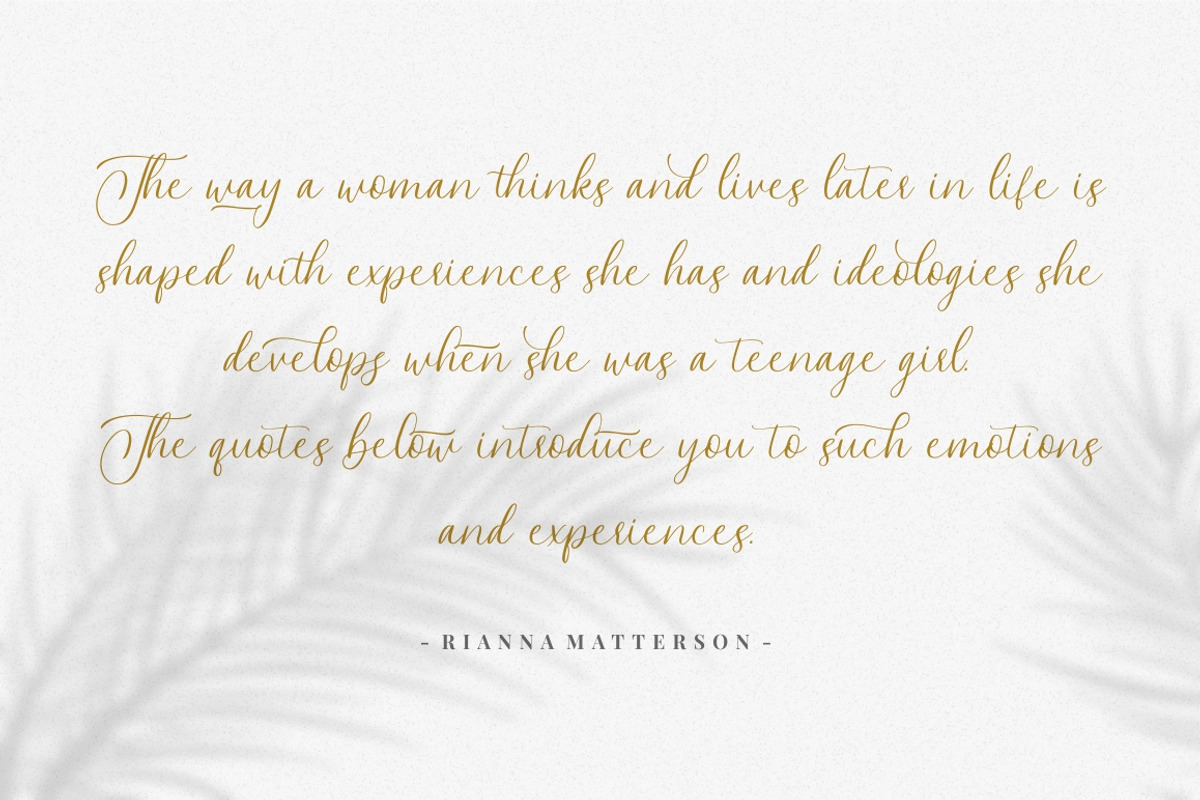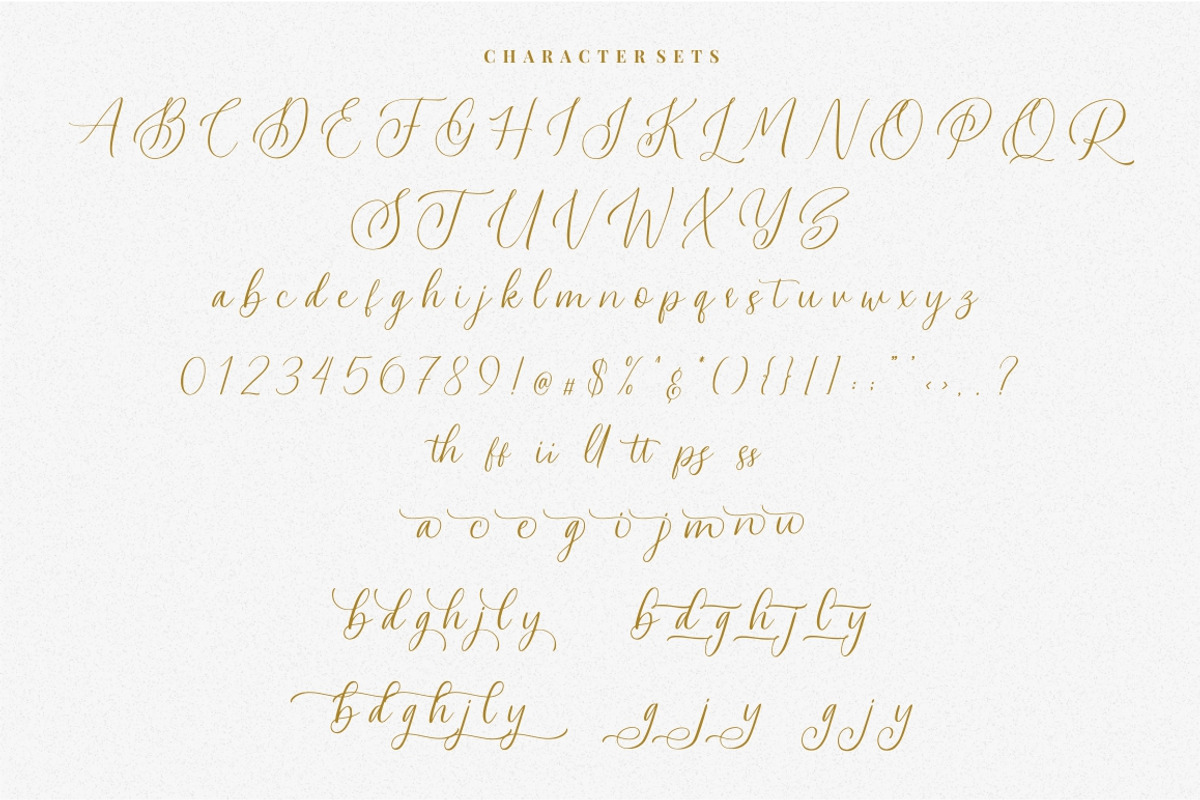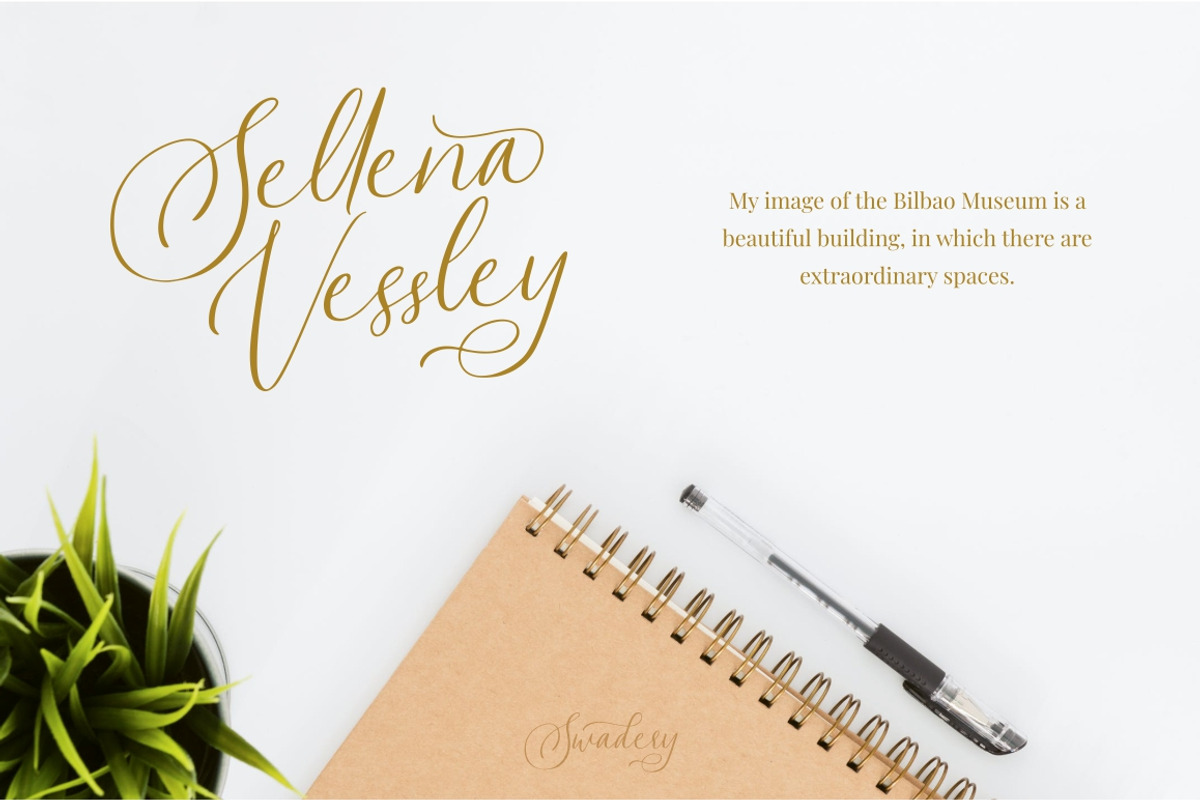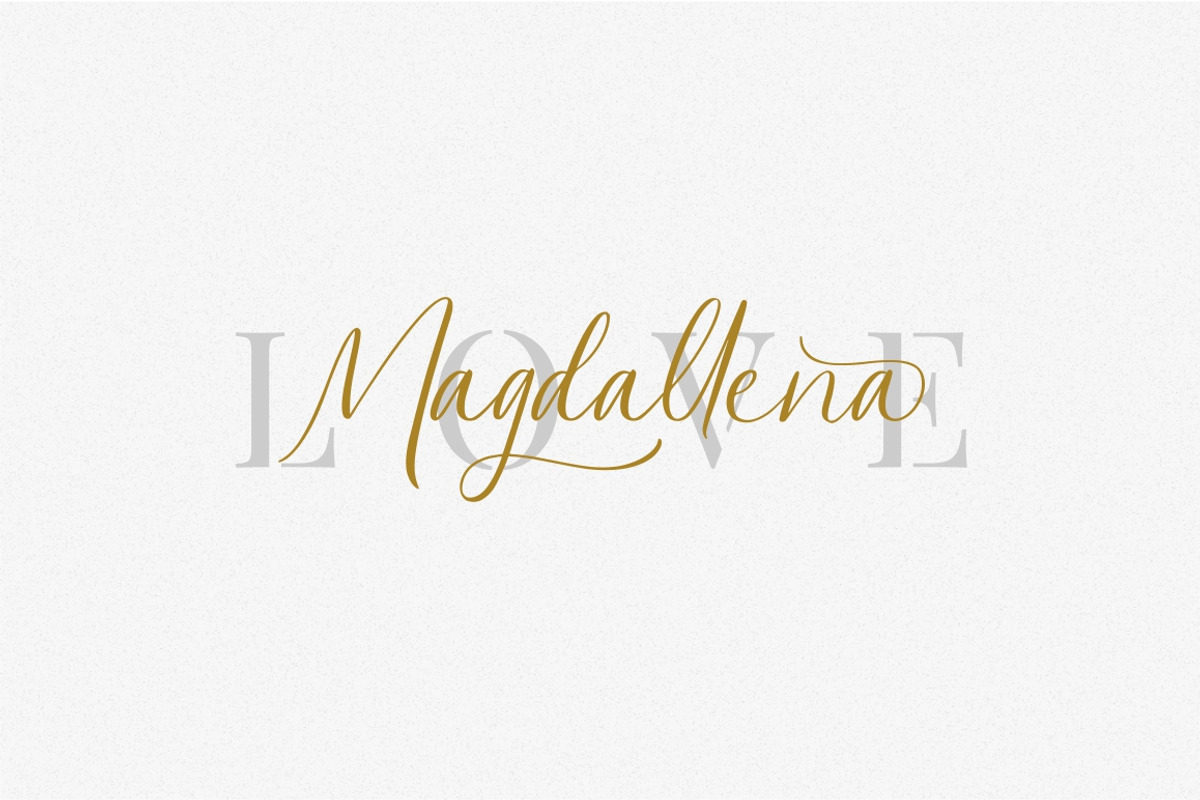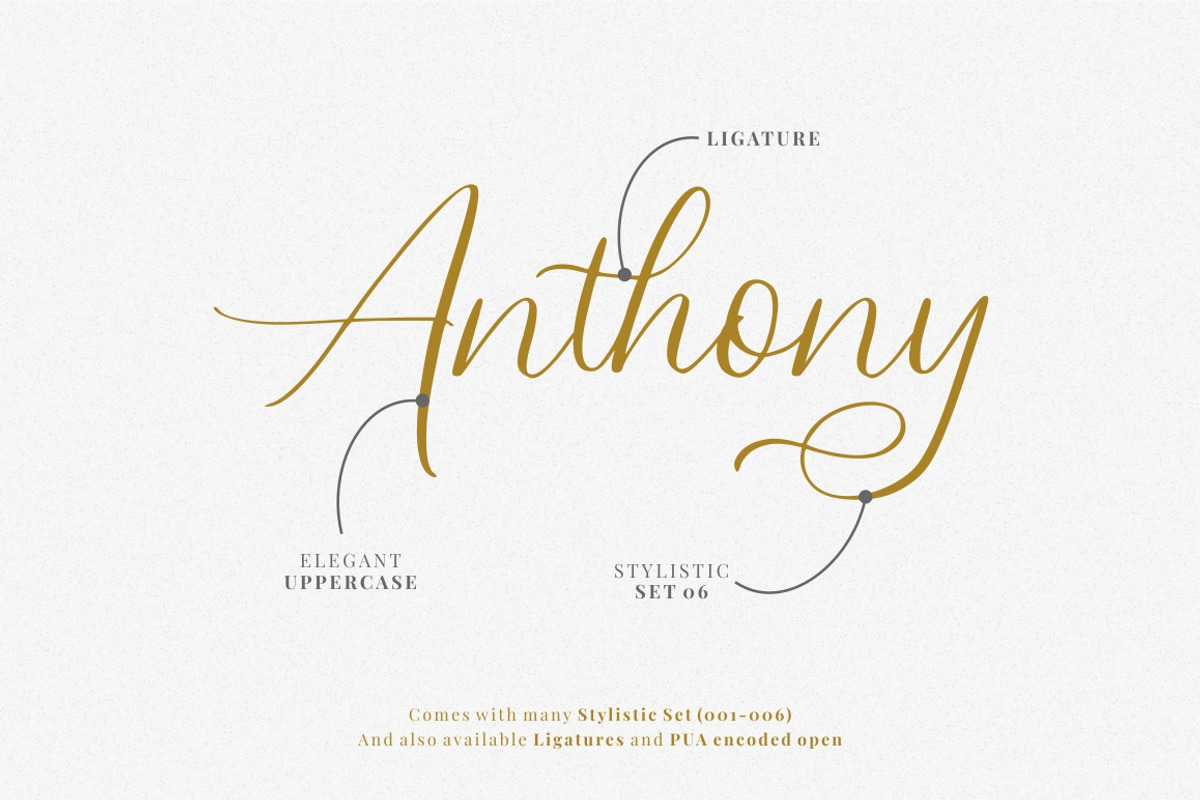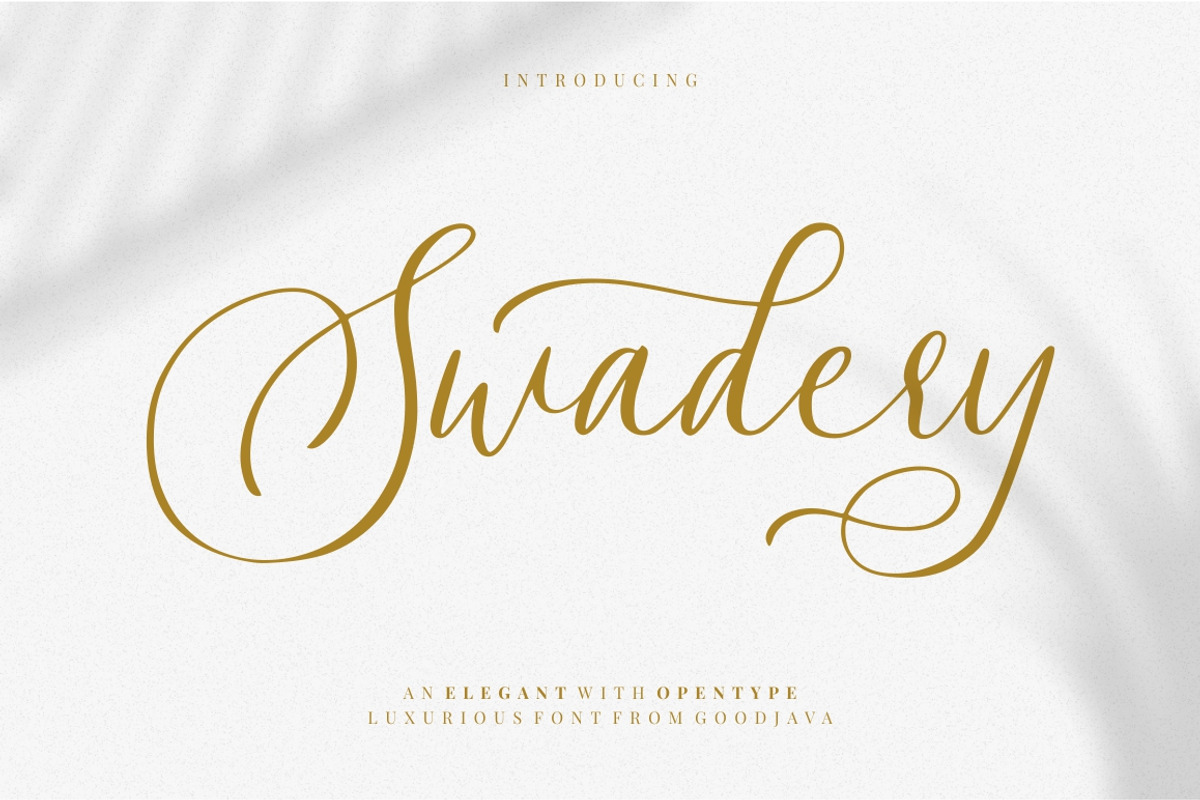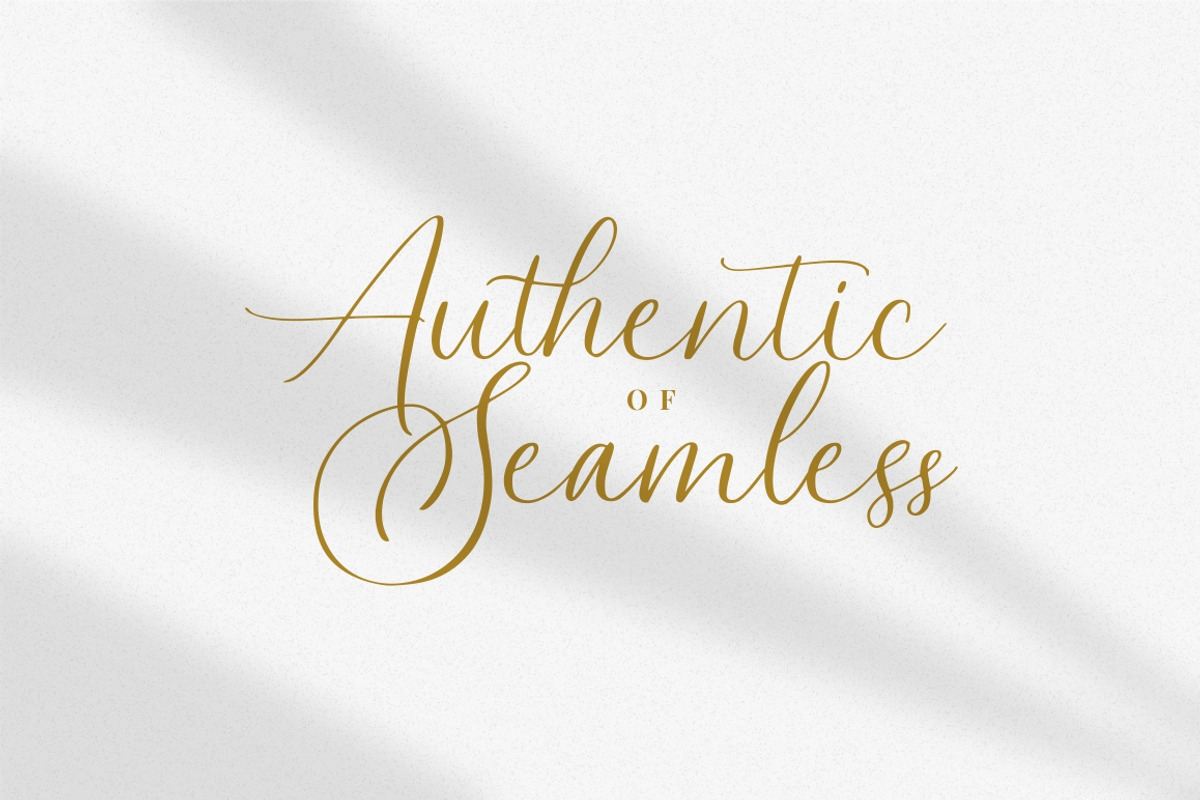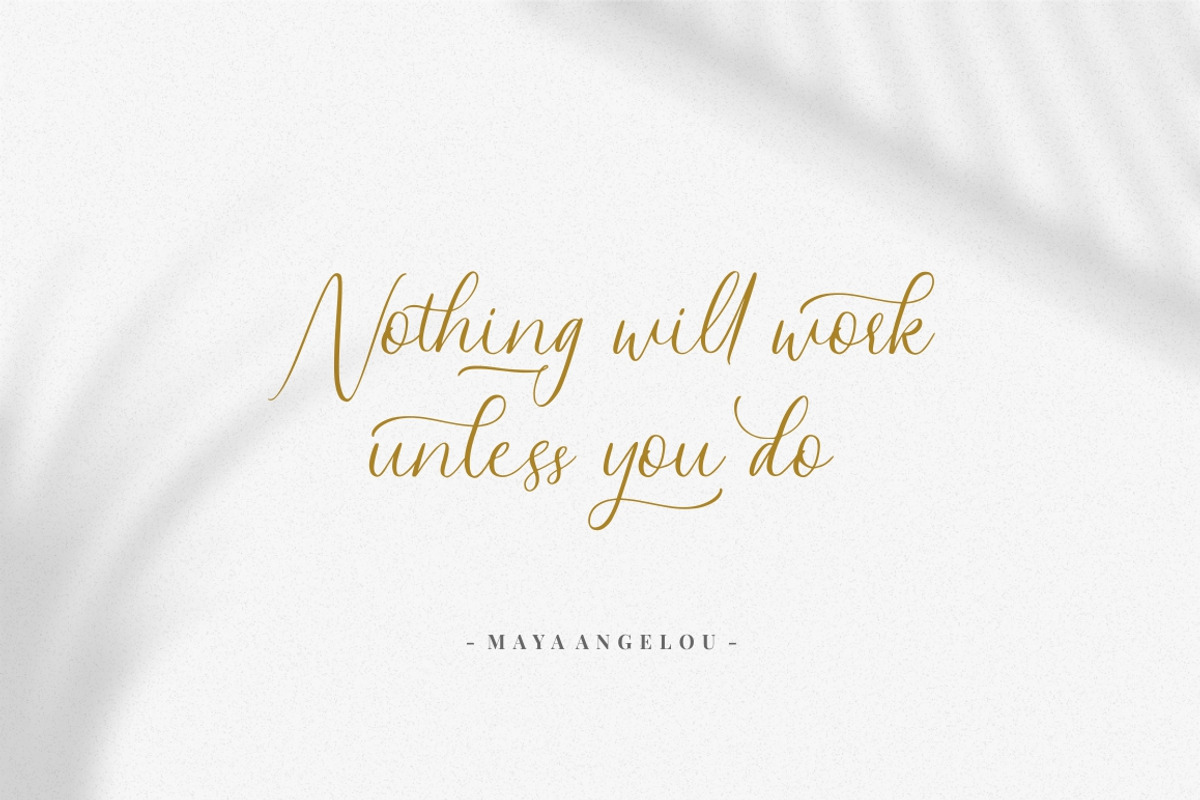
Swadery - Luxurious Font
Swadery - Luxury font is a natural & modern handwritten font. I'ts Perfect for logo, invitation, stationery, wedding designs, social media posts, advertisements, product packaging, product designs, label, photography, watermark, special events or anything. This font include : Swadery OTF-TTF-WOFF, Ligatures, and also Multilingual support.
Very great for branding, logotype, handletteing, invitations, or fashion branding.